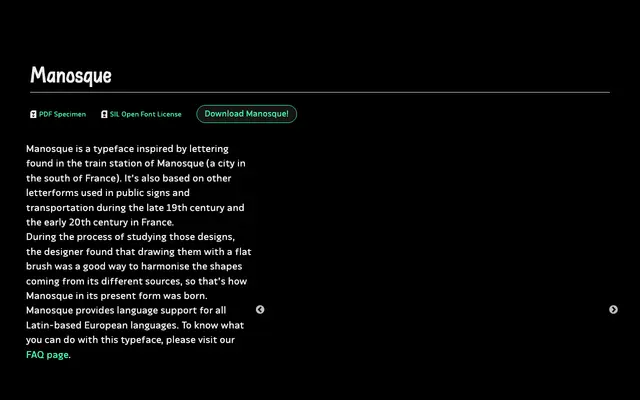
Manosque
Tunera · Ariel Martín Pérez
A flat-brush display typeface drawn from early 20th century French public signage, inspired by lettering found at the Manosque train station.
Rooted in the hand-lettered signage of French public transport and urban infrastructure from the late 19th and early 20th centuries, this typeface uses flat-brush drawing as a method to unify shapes pulled from varied historical sources. The result is a display face with the informal warmth of vernacular lettering, kept coherent by the discipline of a single tool. Released under the SIL Open Font License and available as a free download.
Manosque is drawn with a flat brush to harmonise letterforms sourced from late 19th and early 20th century French public signage, placing it firmly in the display category with a vernacular brush lettering subcategory.